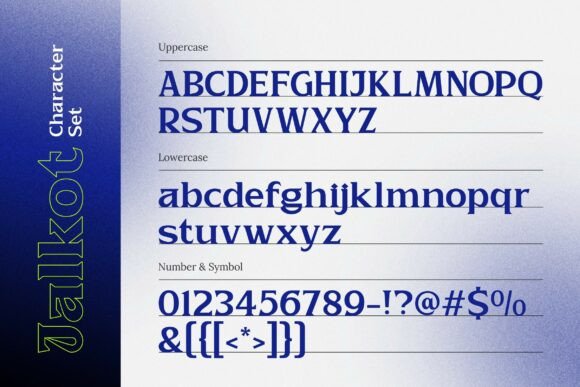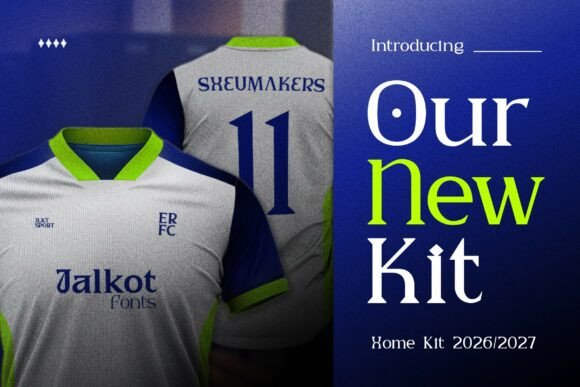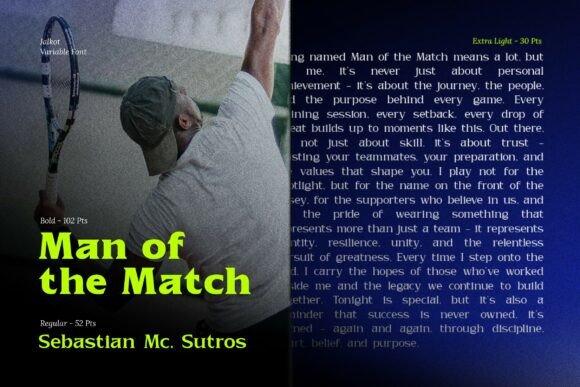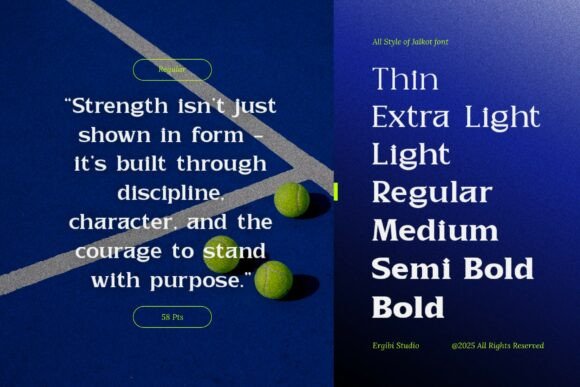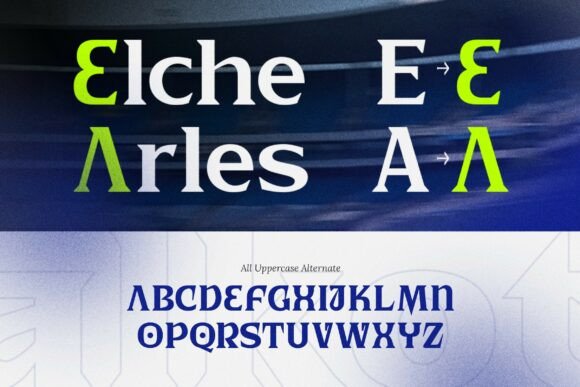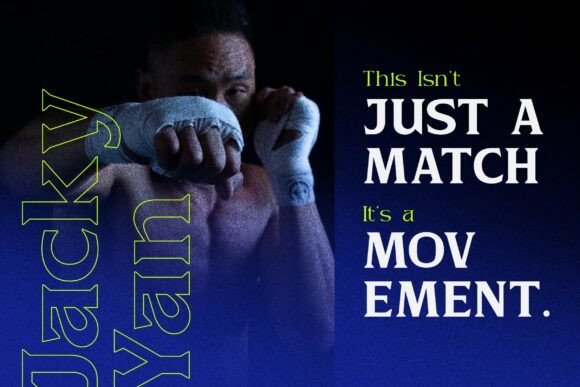
Introduction to Jalkot Font Font
Fonts play a crucial role in design, and the Jalkot Font font is a typeface that brings both character and versatility to any project. Whether you’re working on a branding project, a website, or a print design, the Jalkot Font font offers a unique style that can elevate your work.
Jalkot is a modern serif font family created to meet the demands of strong and contemporary branding.
With seven thoughtfully crafted styles ranging from Thin to Bold, it offers the flexibility needed for a wide variety of design contextsβboth expressive and functional Designed with clean letterforms, sharp yet refined serifs, and well-balanced proportions, Jalkot achieves excellent readability while projecting a confident, professional character.
The Jalkot Font font is more than just a typeface β it’s a design tool that helps you communicate your message with style and clarity. Its unique character set and versatile design make it suitable for a wide range of applications, from elegant invitations to bold headlines.
With its carefully crafted letterforms and balanced proportions, the Jalkot Font font ensures readability and visual appeal across all mediums.
The Jalkot Font font stands out with its unique design, exceptional readability, and versatility across various design applications.